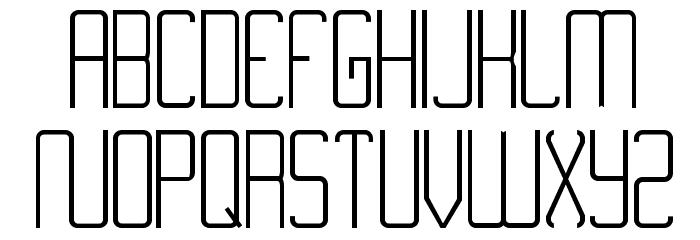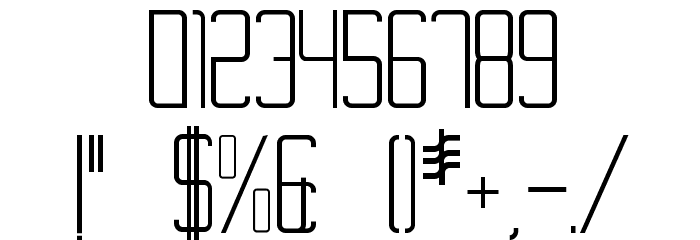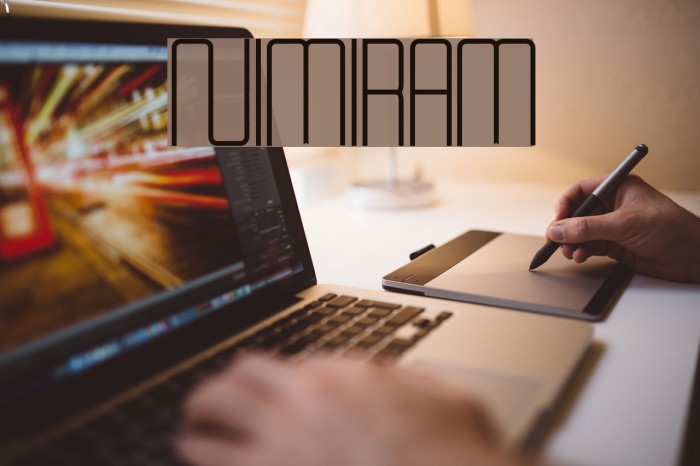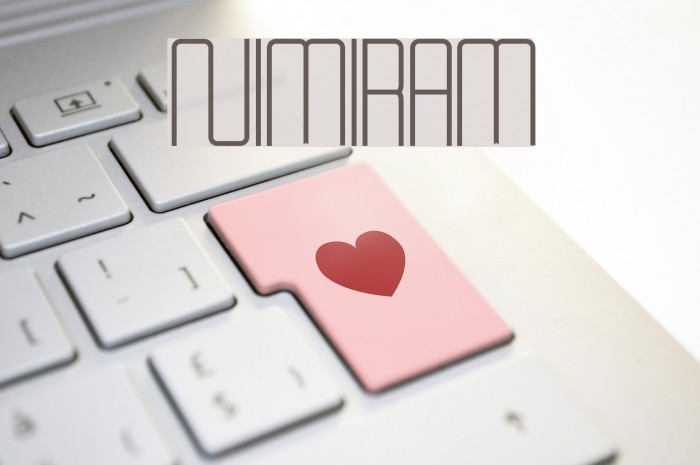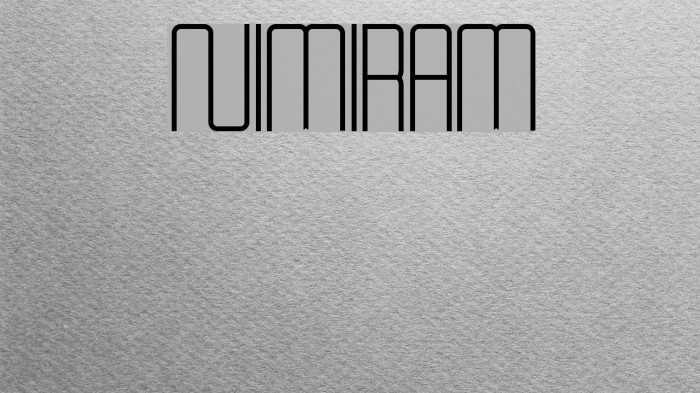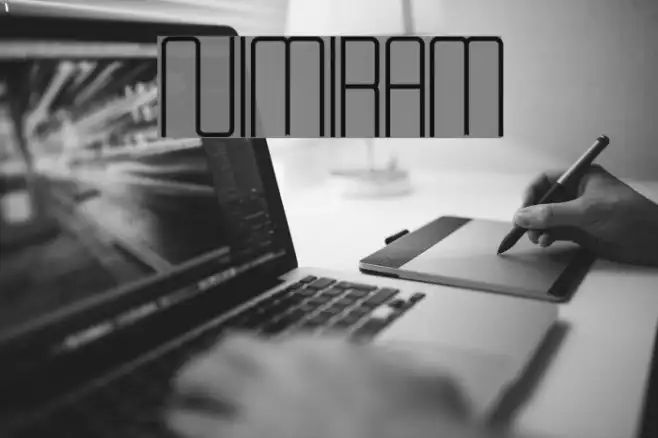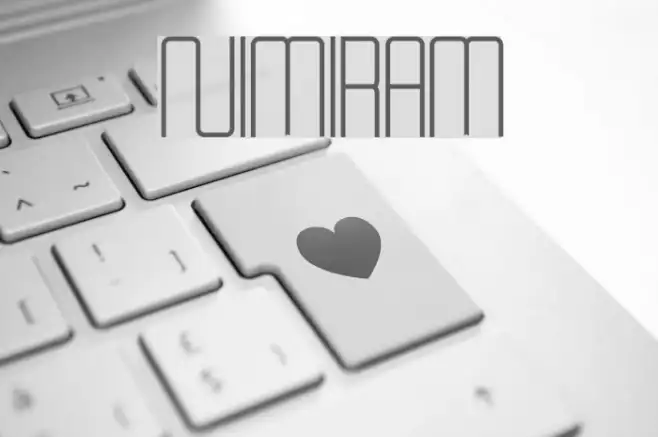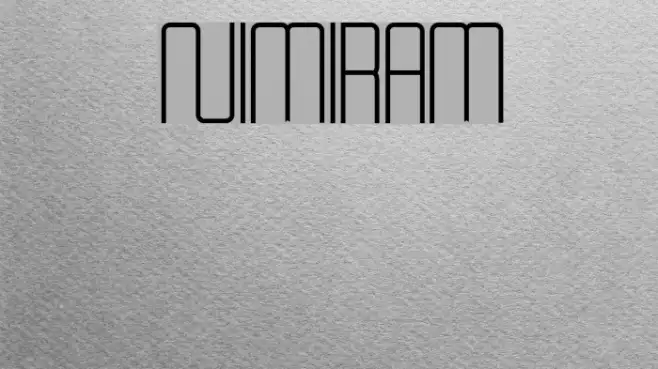
Nimiram Font
This font features a modern and geometric design with a distinctively thin and elongated structure. The characters are composed of clean, straight lines and sharp angles, giving it a sleek and contemporary appearance. The uppercase and lowercase letters maintain a consistent height, contributing to a uniform and orderly look. The numerals and special characters follow the same design principles, ensuring a cohesive style throughout. The font's minimalistic approach makes it suitable for projects that require a futuristic or tech-inspired aesthetic.
A modern, geometric font with thin, elongated characters and a sleek design.
- Proposed Projects: Ideal for tech branding, modern posters, digital interfaces, and futuristic-themed designs.